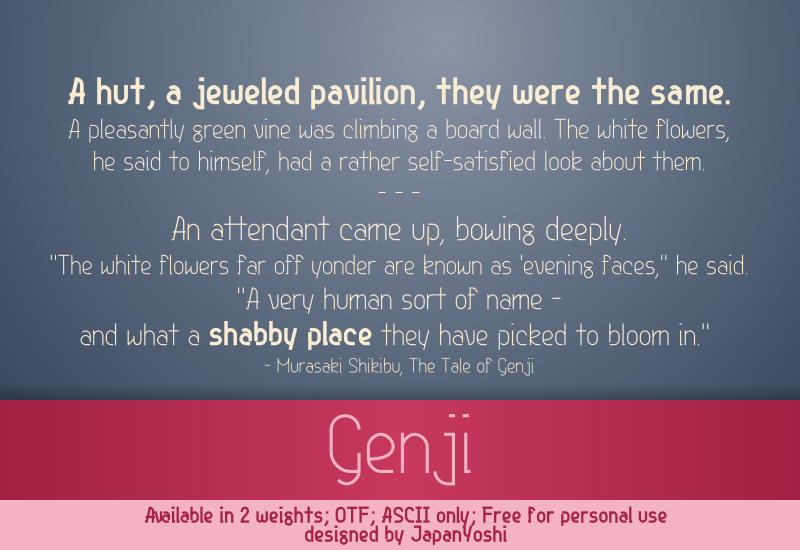
This geometric font is, believe it or not, based on my own handwriting. If you download it or use it in a project, please send me a message on japanyoshi.deviantart.com or Appreciate it on Behance (if you can)! Your feedback keeps me up creating things. Also on Behance: https://www.behance.net/gallery/19719821 Also on deviantART: http://fav.me/d80trr9 |